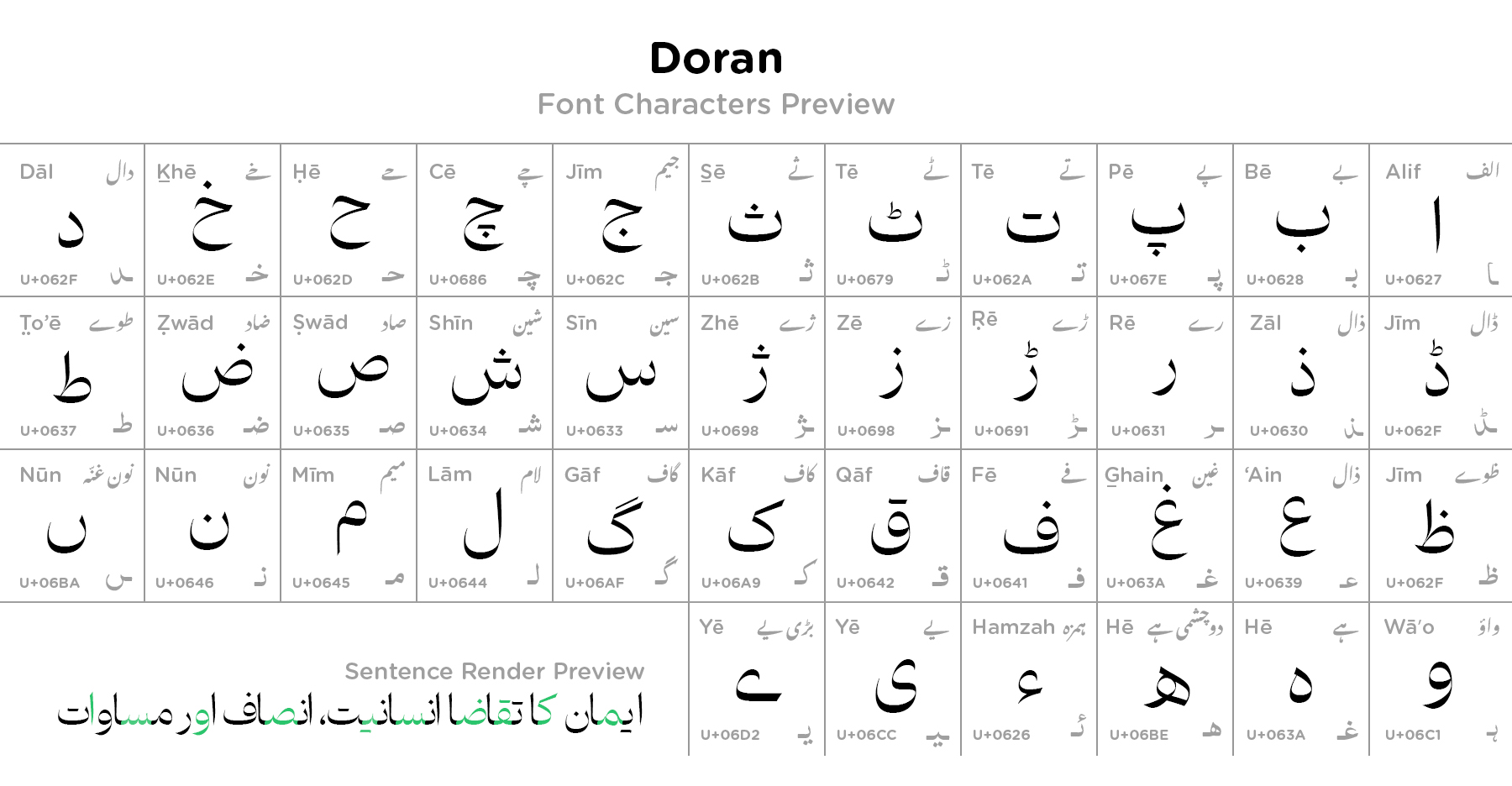
Doran is a wide Qalam writing Persian font with well-aligned letterforms to make your text easy to read and presentable. It is a versatile typeface family that was released in 2023. It is designed by two esteemed Iranian font designers, Fereshte Iranshahi and Reza Bakhtiarifard. The font offers a clear and uncluttered appearance to complement your different designs. It offers an extensive glyph count of 671 with a wide character set of 543 to support various languages across different platforms. Moreover, it is compatible with various languages other than Persian, including Arabic, Urdu, Latin, and more, aiding in projects with multilinguistic needs. Its diversity is enhanced by the availability of six different font weights, making it more accessible and appealing to designers. These weights are: